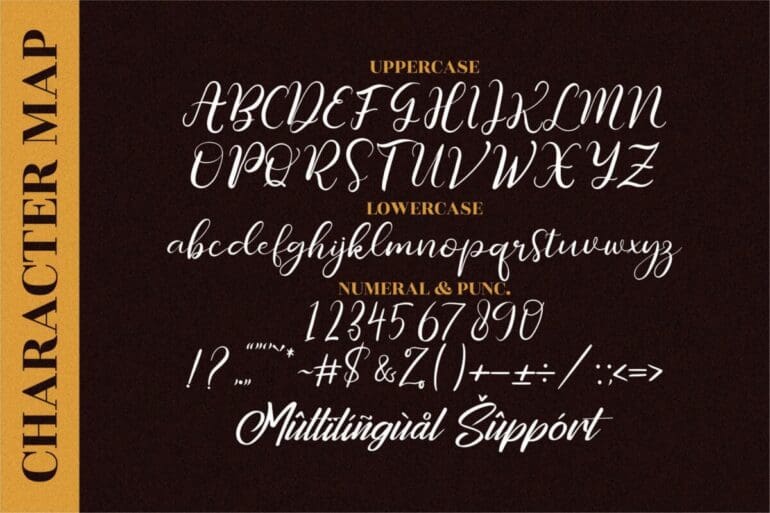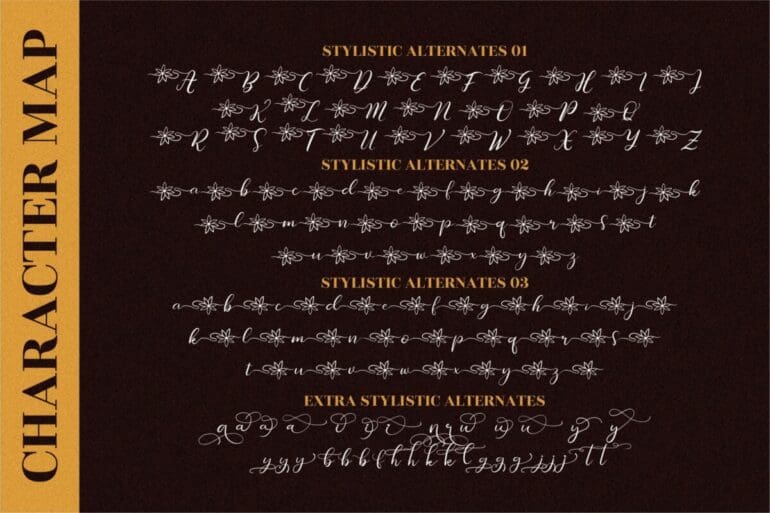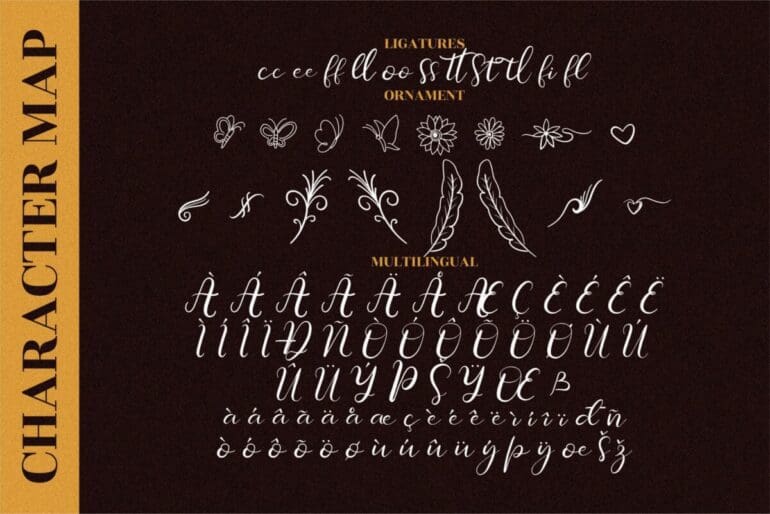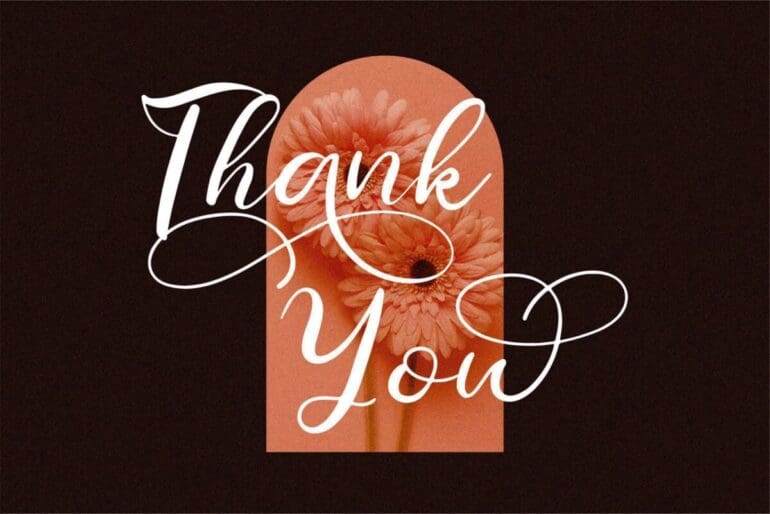
Roslitta Aganta Font
Roslitta Aganta is a beautiful and refined Script Font. It has a classy, elegant, and modern look that can be used for logos, branding, invitations, stationery, wedding designs, social media posts, and much more! This font is PUA encoded which means you can access all of the glyphs and swashes with ease!